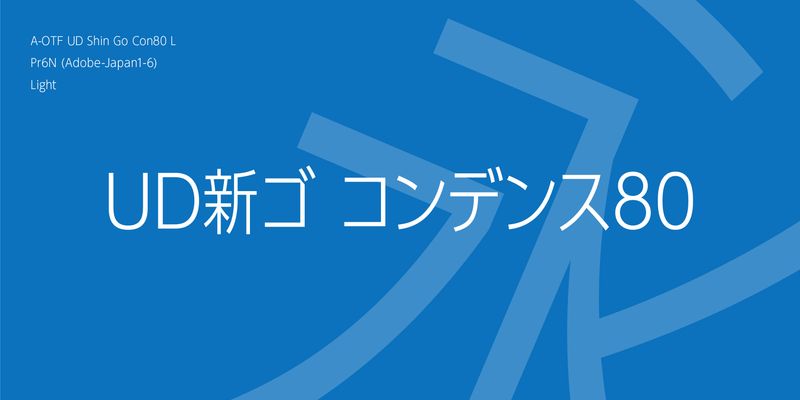
A-OTF UD Shin Go Con80 Pr6N Font Free Download is a highly legible, modern Gothic (sans-serif) typeface developed with Universal Design (UD) principles in mind. The Con80 weight offers a condensed yet balanced structure, making it ideal for use in environments where space-saving typography and clarity are essential—such as signage, public information displays, user interfaces, and editorial layouts.
This font supports an extensive range of characters, including full Japanese and Latin script sets, thanks to its Pr6N (Pro 6N) classification, which includes over 23,000 glyphs. It's perfect for multilingual design projects requiring typographic harmony and accessibility across various languages and formats.